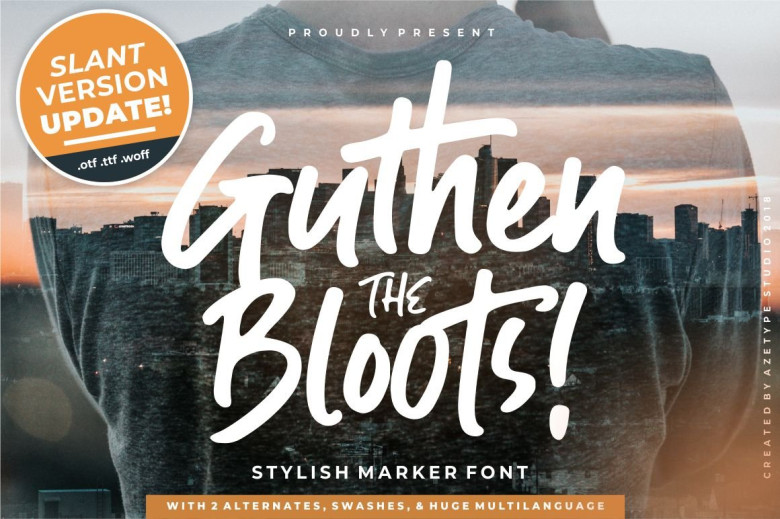
Guthen Bloots Font
Presenting Guthen Bloots! A Smooth Marker Font with stylish alternates. This font is made with the perfect combination of each character. Mix & Match to get a unique combination of letters. It looks original and can be used for all your project needs. Each glyph has its own uniqueness and when meeting with others will provide dynamic and pleasing connections.
This font can be used at any time and in any project. So, Guthen Bloots can’t wait to give its touch to all your design projects such as quotes, poster design, personal branding, promotional materials, logotype, product packaging, etc. Guthen Bloots multilingual support: Afrikaans, Albanian, Catalan, Danish, Dutch, English, Estonian, French, Finnish, German, Icelandic, Indonesian, Italian, Malay, Norwegian, Portuguese, Spanish, Swedish, Zulu, and more.
Guthen Bloots Brush Font